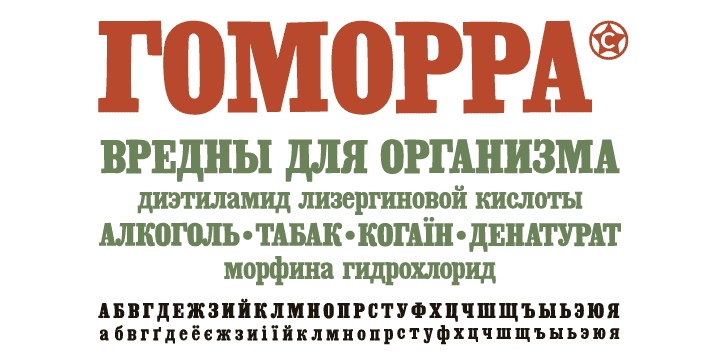
Gomorrah Font
Gomorrah Font is perfect for dramatic branding, dark entertainment venues, gothic fashion labels, horror movie titles, metal music albums, mysterious product packaging, theatrical productions, noir-style magazines, edgy advertising campaigns, underground culture materials, apocalyptic design projects, and intense editorial layouts.
What makes Gomorrah Font exciting is its dark intensity that captures the essence of dramatic storytelling and gothic atmosphere through powerful letterforms that command attention with their ominous presence and theatrical gravitas. This compelling typeface embodies the spirit of dramatic narrative and atmospheric design, combining bold character with mysterious elegance that resonates with audiences seeking powerful emotional experiences and compelling visual drama. The font's commanding presence and dark aesthetic create immediate impact while maintaining the readability essential for commercial applications that demand both drama and functionality. Its intense personality makes it perfect for brands that want to communicate power, mystery, and the transformative force of dramatic storytelling and atmospheric design.
The Gomorrah Font family includes regular, medium, and bold weights, featuring dramatic alternates, theatrical ligatures, and atmospheric design elements. The character set incorporates mysterious symbols, bold numerals, and dramatic punctuation marks that enhance the font's intense character and provide designers with comprehensive dramatic typography solutions for powerful brand expressions.